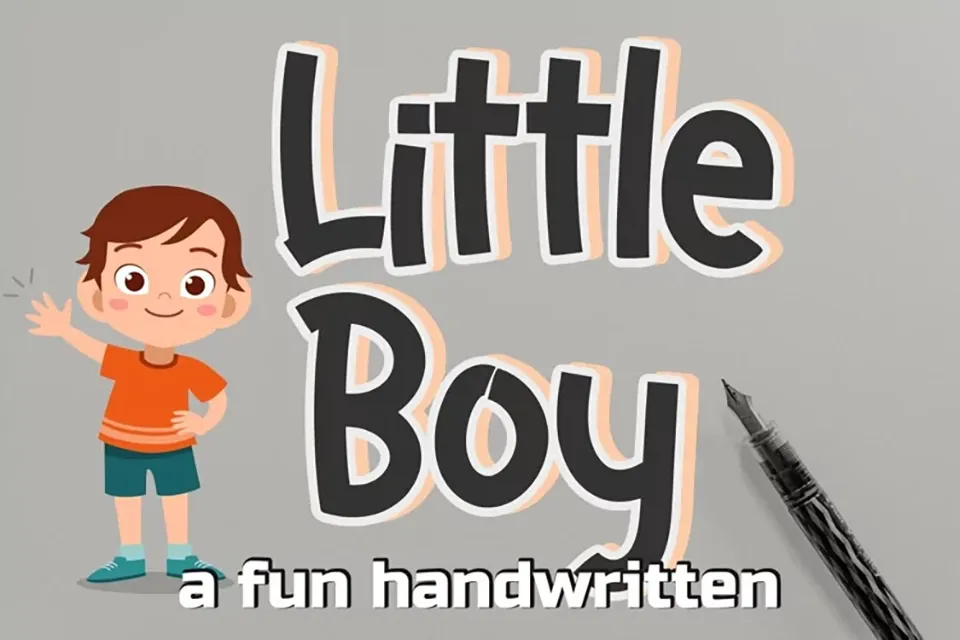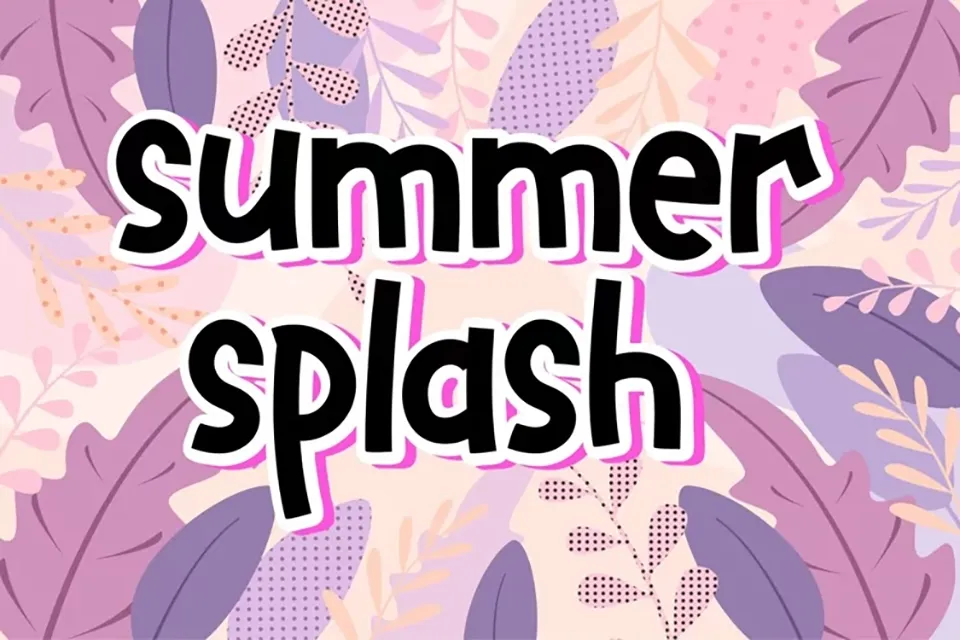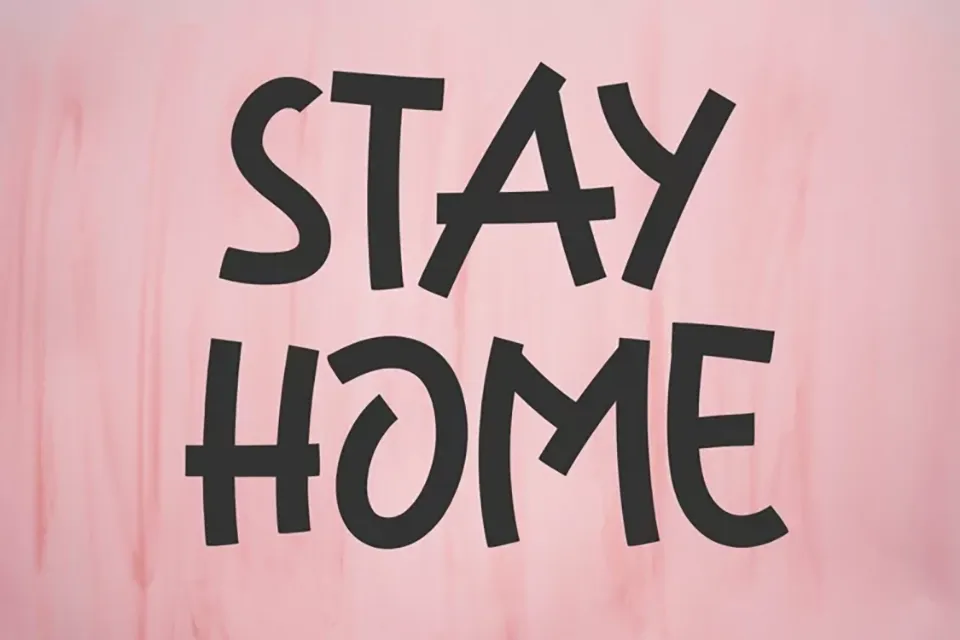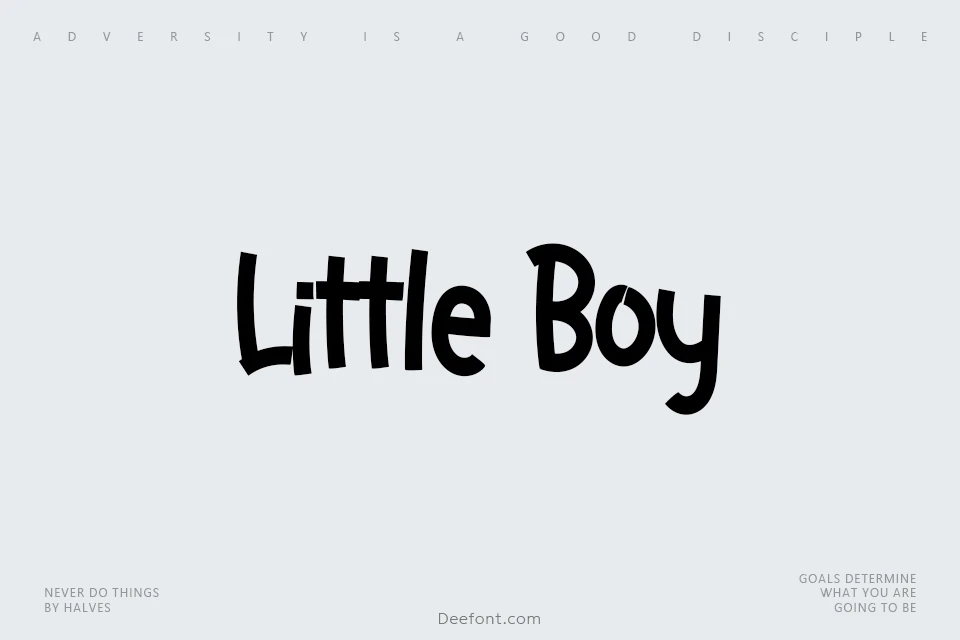
Little Boy Font
Little Boy Font is a cute, friendly, and fun handwritten display font. Perfect for children-themed designs, especially when paired with bright colors, this font adds a playful and inviting touch to any creative project.